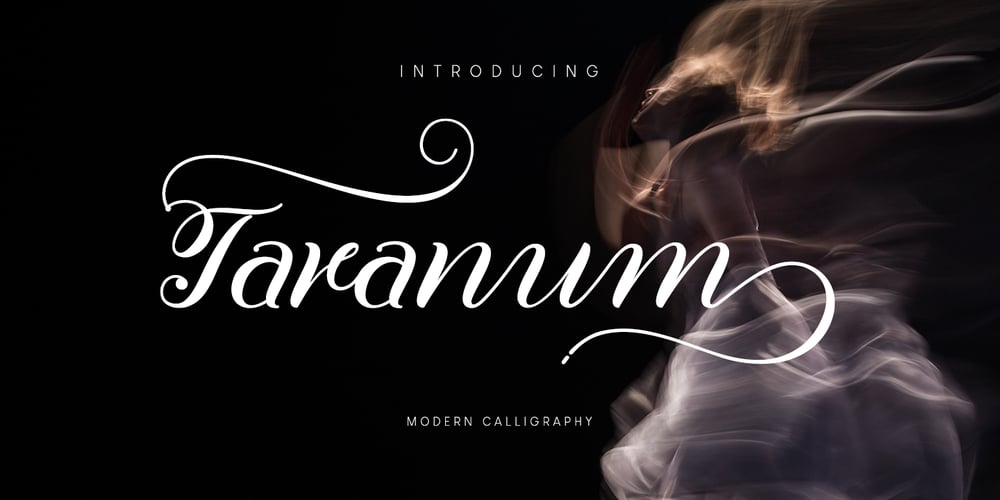
Taranum Font Family was designed by Symon Adam Abdullah and published by Jorsecreative. Taranum contains 1 styles and family package options. Taranum is a beautiful, high-quality modern-style calligraphy font, perfect for branding, web titles, Application, wedding invitation cards, and maybe for Drink Labels, etc. Taranum is made with the Glyph OpenTypo Latpro option, so there are no worries about the completeness, numbers, symbols and various punctuation marks. All lowercase letters including initial and final swash provide a realistic calligraphy style. OpenType features can be accessed using smart OpenType programs such as Adobe Photo Shop, Adobe Illustrator, Adobe Indesign, Corel Draw and Microsoft Office. Thank you and have a nice day. Symon Adam